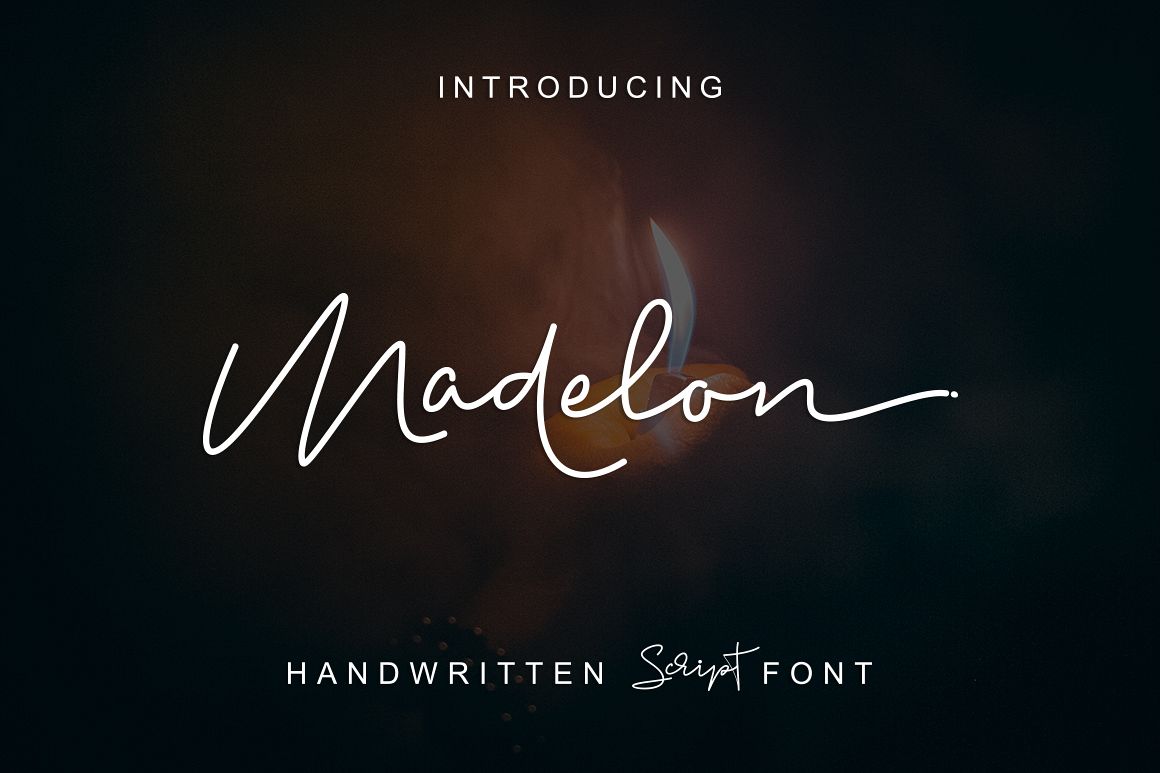
Madelon Script
IntroducingMadelon Script a new fresh & modern script with a handmade calligraphy style, decorative characters and a dancing baseline! So beautiful on invitation like greeting cards, branding materials, business cards, quotes, posters, and more!!Madelon Script come with 347 glyphs. The alternative characters were divided into several Open Type features such as Swash, Stylistic Sets, Stylistic Alternates, Contextual Alternates, and Ligature. The Open Type features can be accessed by using Open Type savvy programs such as Adobe Illustrator, Adobe InDesign, Adobe Photoshop Corel Draw X version, And Microsoft Word. And this Font has given PUA unicode (specially coded fonts). so that all the alternate characters can easily be accessed in full by a craftsman or designer.Madelon Script Features :Uppercase & Lowercase International Languange & Symbols Support Punctuation & Number PUA Unicode Range Standard Ligatures Discretionary Ligatures Stylistic Alternates Stylistic Set 1-26 Character Variant Contextual Swash Bonus The ZIP file are include the following :Madelon Script.OTF Madelon Script.TTFBehind Script. Web Font (eot, svg, woff, woff2) If you don't have a program that supports OpenType features such as Adobe Illustrator and CorelDraw X Versions, you can access all the alternate glyphs using Font Book (Mac) or Character Map (Windows).For use in office word, you all can read the following article.http://www.magpiepaperworks.com/blog/using-opentype-fonts-in-microsoft-word/ To Access Alternate Characters Click The Link Below:https://www.youtube.com/watch?v=geL0Ye02Ryk How to access alternates in Adobe illustrator CChttps://www.youtube.com/watch?v=V25yiUh8BcE How to access alternates in Ms Wordhttps://www.youtube.com/watch?v=HxkhZiCuwEw How to access alternates in Coreldraw X7https://www.youtube.com/watch?v=UBVsufJjons How to access alternates in Adobe Photoshop CChttps://www.youtube.com/watch?v=BYKXl58AdNY How to access alternates in Indesign CShttps://www.youtube.com/watch?v=HgZTCxKG14Q How to access alternates in another softwarehttps://fontbundles.net/tutorialsIf you have any question, don't hesitate to contact me by email  Thanks and happy designing :-)Thank You for purchase!